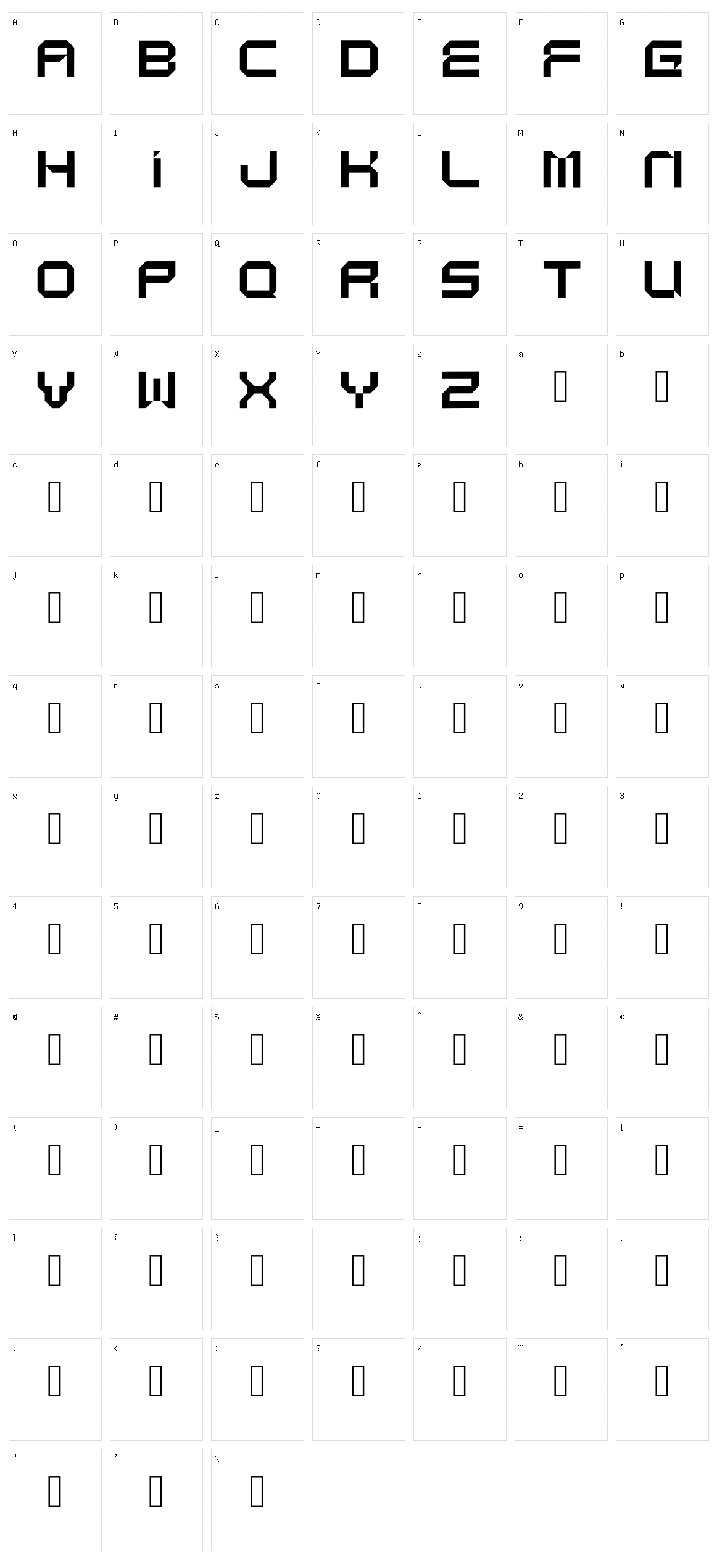
The free font Hannah is carefully designed by Tobias Verheecke, showcasing a thoughtful balance of creativity and usability and falls under the Square font style. When you download the ZIP file, it contains only 5.23 KB of font files, making it lightweight and quick to download. Please review the license details below to understand permitted usage and distribution rights. If license information is not available, we recommend using this font for personal projects only or contacting the author directly for commercial usage permissions.